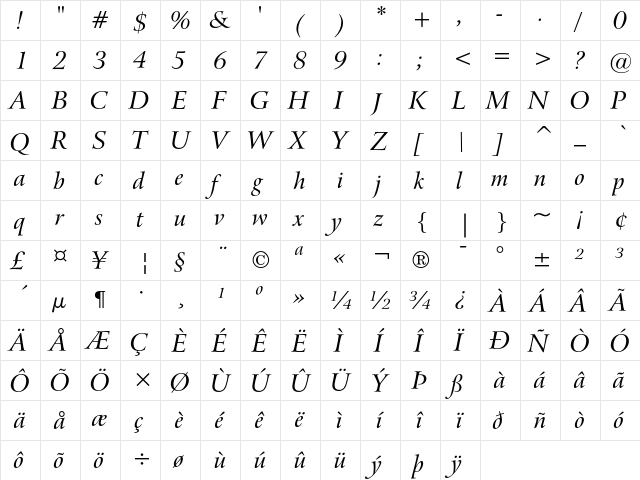
Bitstream Arrus Italic
Design Context for Bitstream Arrus Typeface
Bitstream Arrus is a composed and adaptable typeface that performs quietly and consistently across a wide range of design contexts. The dynamic lean of this cut emphasises speed and emphasis in any layout.
Pro Tip: Use Bitstream Arrus for emphasis, pull quotes, and subheadings where its slanted energy can add rhythm to the layout.